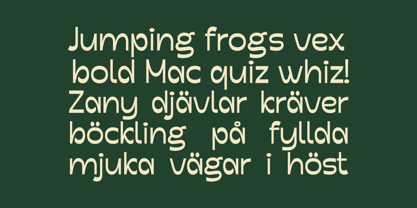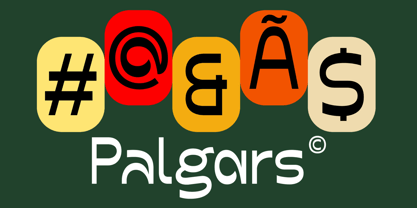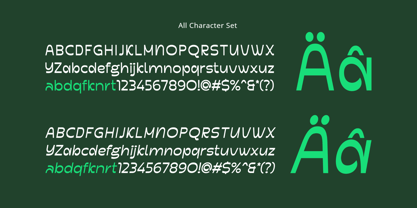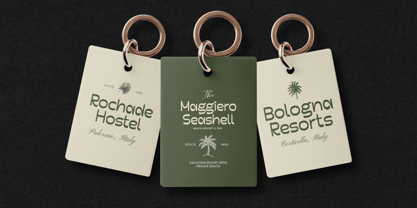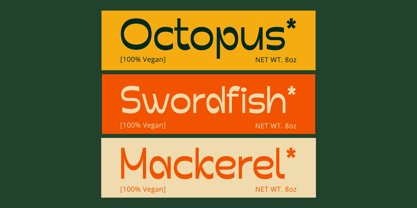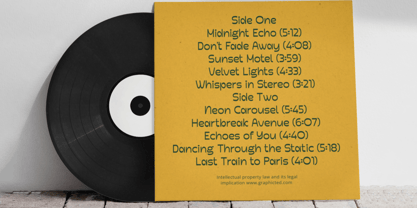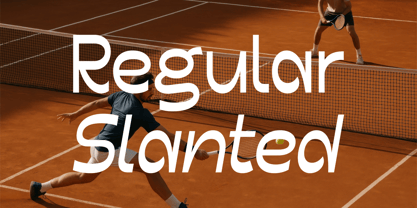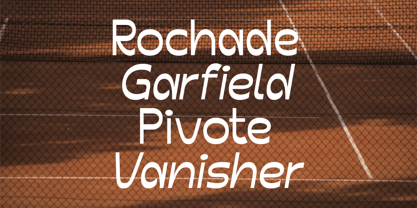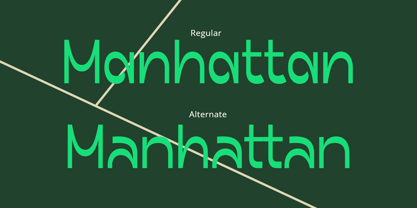
Palgars
The Palgars Font Family was designed by Baliya Ibnu Bi Malkan and published by Glyphminds Studios. Palgars contains 2 styles and family package options. More about this family
Headline: Meet Palgars: The Font That Blends Modern with Playful
Tired of boring, generic fonts? Give your designs a voice that stands out!
Introducing Palgars, a modern and playful display font designed to inject personality and charm into your projects. Palgars is built on a clean sans-serif foundation, making it incredibly versatile, but it breaks the mold with its unique, flowing letterforms that are full of character. The quirky curves and friendly feel make it instantly memorable and approachable.
Whether you're crafting a new logo, designing eye-catching headlines, or creating stunning social media posts, Palgars is your perfect partner. Its clean yet distinctive style makes it ideal for branding, packaging, posters, and so much more.
• Palgars Regular: The solid, go-to style for a bold statement.
• Palgars Slant: An energetic, oblique version for added emphasis and dynamism.
• Includes uppercase, lowercase, numbers, punctuation, and multilingual support.